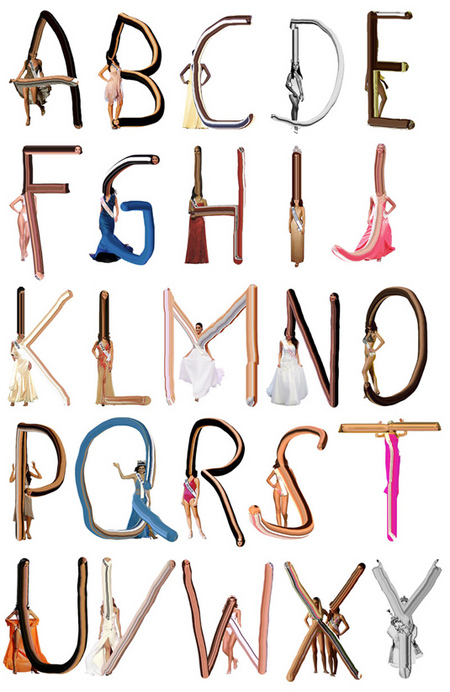
!! OMG, Beauty Queen Font !!
This amazing font from SHERIFF featuring stretched-out pageant ladies could very well be the campaign font for Palin 2012.